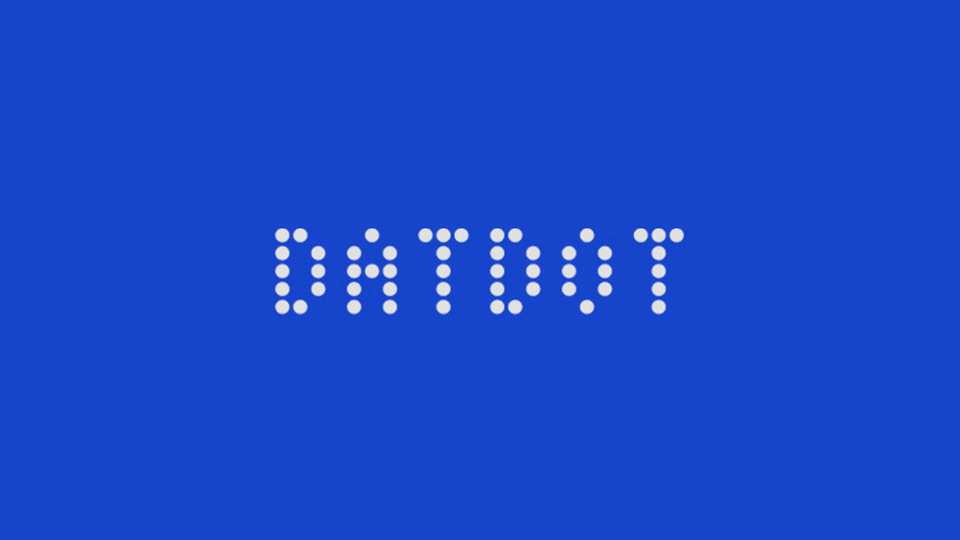
Download DatDot font, a dotted monospaced typeface based on the grid. With three styles, DatDot is suited for editorial and publishing, software and gaming as well as web and screen design.